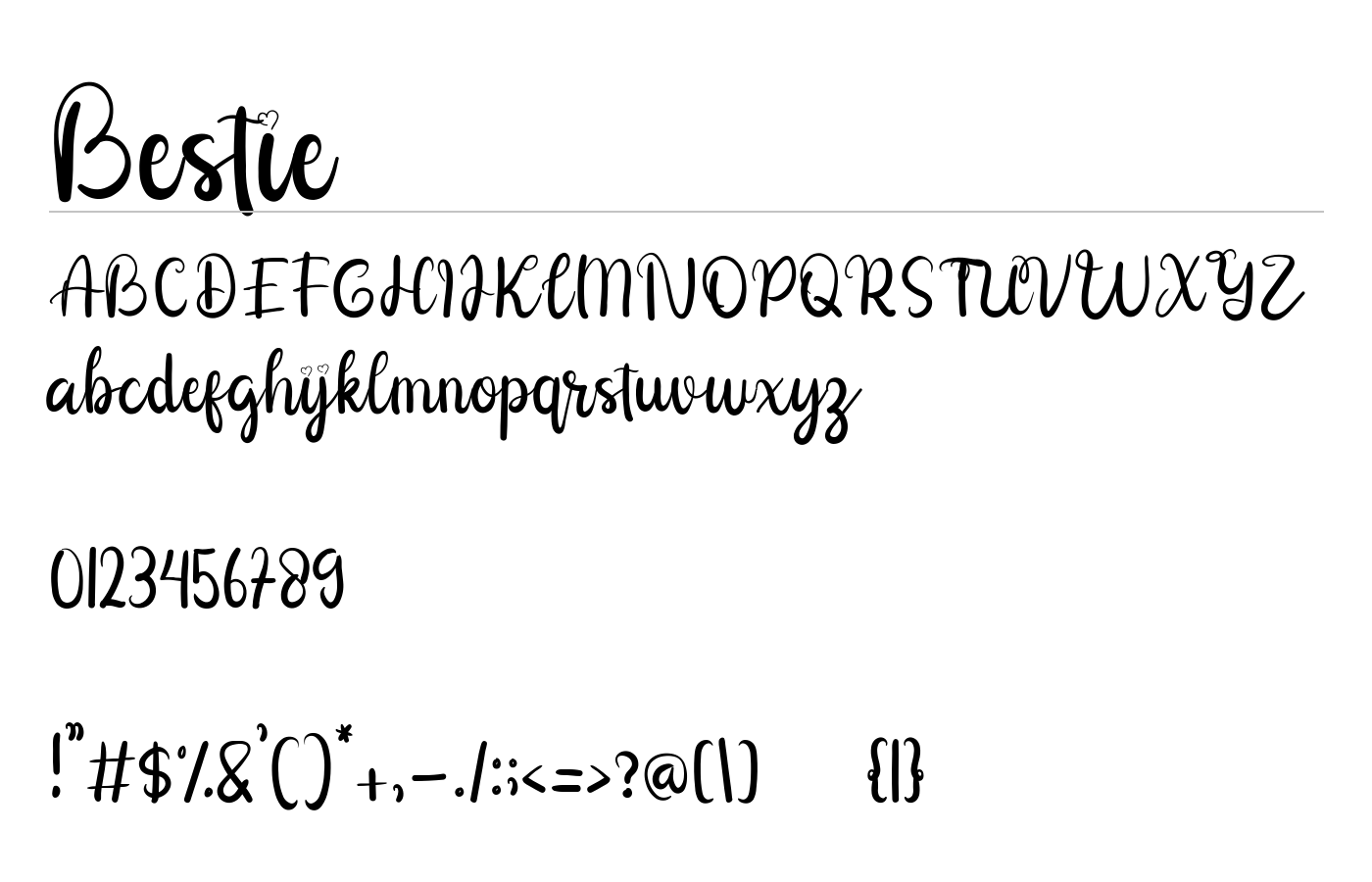
Bestie Font is a charming, playful script typeface with a friendly and whimsical feel, featuring smooth, flowing strokes and delicate heart details that add personality and warmth. Its moderate weight and consistent stroke contrast make it well suited for branding, invitations, and headlines where a casual, approachable, and fun vibe is desired. This font shines in projects aiming to convey creativity and friendliness, making it ideal for fashion, lifestyle, and creative industries.
Bestie Font
About Bestie Font
| Font family | Bestie Font |
| Designer | Letterday Studio |